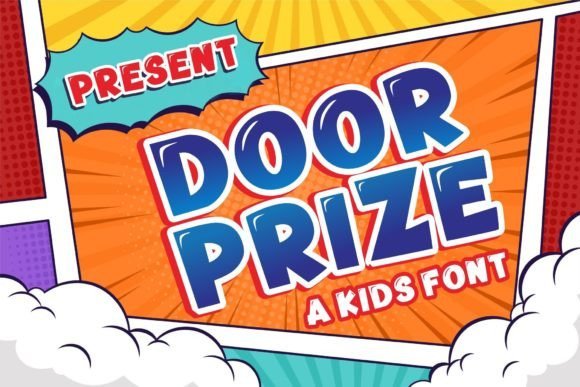
Unlock the Fun with Doorprize Font
Remember the thrill of winning a doorprize at a childhood birthday party? The excitement of receiving a fun prize and the joy of showing it off to friends. That same sense of excitement and playfulness is exactly what the Doorprize Font embodies.
Doorprize Font is a cheerful display font designed to bring a smile to your audience’s faces. Its informal and casual style makes it a top choice for any creation, from product packaging to T-shirts and labels. Whether you’re designing a logo, poster, or social media graphics, Doorprize Font is the perfect addition to add a touch of whimsy and fun.
Doorprize Font Key Features
- Font Family: Doorprize is a unique, hand-drawn font designed for various applications, including titles, headings, and body text.
- Unique Characteristics: Doorprize Font features a distinctive, playful style with rounded edges, making it perfect for creating eye-catching titles and headings.
- Character Set: The font includes a comprehensive character set, including uppercase and lowercase letters, numerals, punctuation marks, and special characters.
Doorprize Font Review
Overall, I think Doorprize Font is a solid addition to any designer’s toolkit. It’s a modern, versatile font that can be used in a variety of contexts, from branding to editorial design. ✨
- Unique Character Set: The font has a distinctive character set that can help your designs stand out from the crowd.
- Highly Customizable: Doorprize Font comes with a wide range of font styles, including bold, italic, and condensed versions.
However, I do have a few reservations about this font. ⚠️
- Lack of Consistency: In some instances, the font can look inconsistent, particularly when used in smaller text sizes.
- Not Ideal for Body Text: Doorprize Font may not be the best choice for large blocks of body text due to its condensed nature.
Overall, I would recommend Doorprize Font to designers looking for a unique, attention-grabbing font for their next project. Just be aware of its limitations and use it judiciously.
Tips for Getting the Most Out of Doorprize Font
Here are some tips to help you get the most out of Doorprize Font:
- Use it for event promotions, such as raffles or giveaways
- Customize the font to match your brand’s color scheme and style
- Combine it with other fonts to create a unique and eye-catching design
Doorprize Font is commonly used for:
- Raffle tickets
- Giveaway announcements
- Event promotions
Alternatives to “Doorprize Font” for Designers
Great Vibes is a playful, handwritten font that is perfect for adding a touch of whimsy to your designs. It’s great for use in social media graphics, advertisements, and other promotional materials where you want to create a sense of excitement and energy.
Compared to Doorprize Font, Great Vibes has a more elegant and refined feel, making it a better choice for designs where you want to convey a sense of sophistication and style.
Alex Brush is a beautiful, elegant script font that is perfect for use in invitations, wedding stationery, and other designs where you want to create a sense of luxury and refinement.
Unlike Doorprize Font, Alex Brush has a more formal and sophisticated feel, making it a better choice for designs where you want to convey a sense of elegance and sophistication.
Pacifico is a beautiful, modern script font that is perfect for use in designs where you want to create a sense of calm and serenity. It’s great for use in packaging, branding, and other designs where you want to convey a sense of relaxation and tranquility.